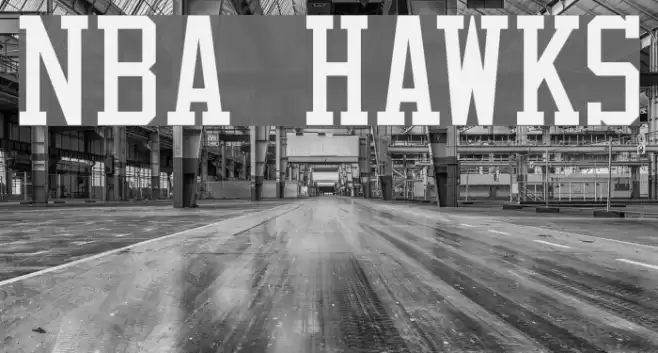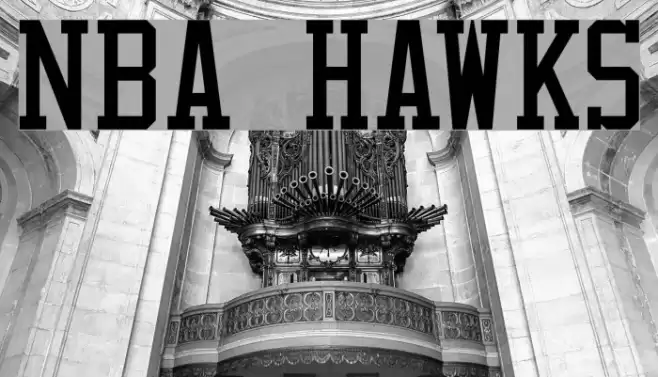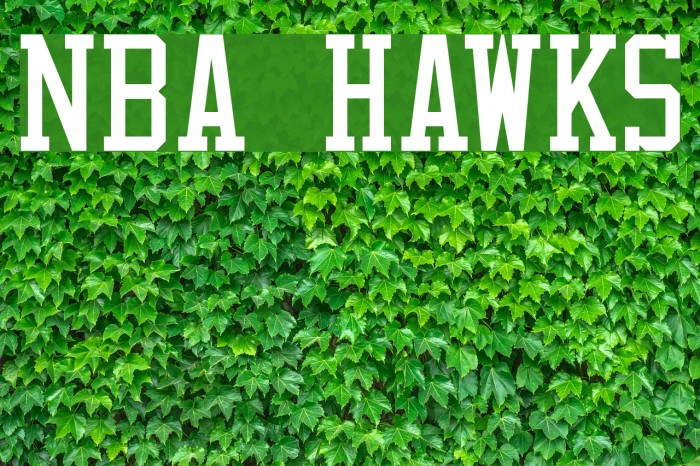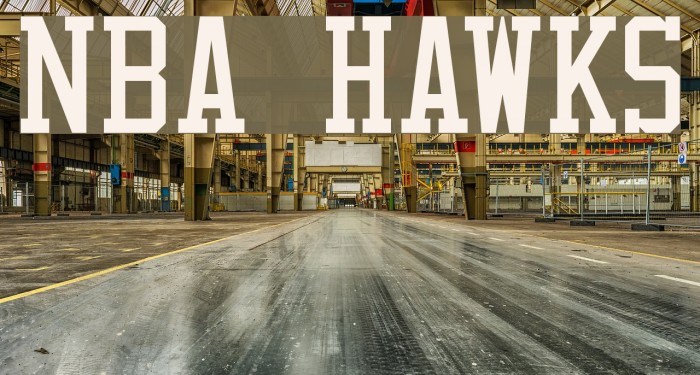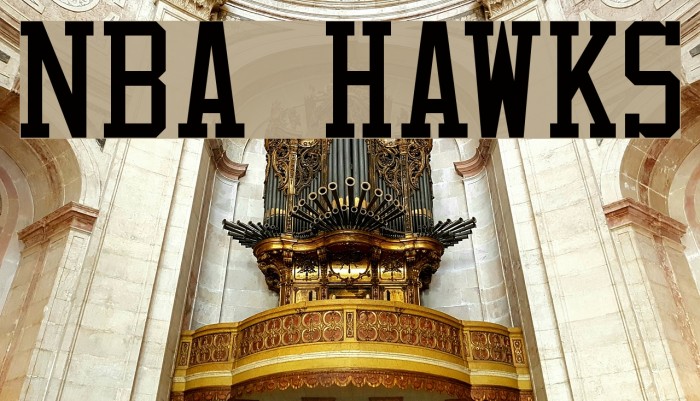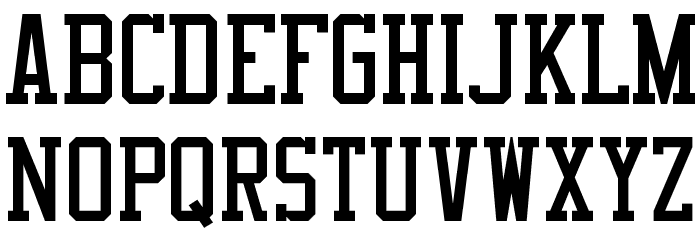
NBA Hawks Font
NBA Hawks Description
This font features a bold and robust design with strong, angular serifs and a commanding presence. The uppercase letters are tall and slightly condensed, giving a sense of authority and strength. The numbers are equally bold, maintaining the same strong serif style, which ensures consistency across all characters. The overall design is clean and impactful, making it suitable for attention-grabbing headlines or titles. The lack of lowercase letters and special characters suggests a focus on simplicity and directness, ideal for sports branding or team logos.
A bold, serif font with strong, angular lines and a commanding presence from Uncategorized fonts.
- Proposed Projects: Ideal for sports branding, team logos, headlines, and posters.